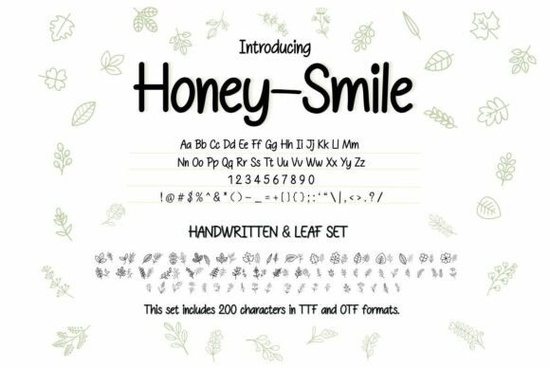
If you are looking for a handwritten font that feels genuinely warm without being too rigid, the Honey-smile font and its botanical companion set is designed to give your projects a cozy, organic edge.
This bundle combines a soft, rounded script with a dedicated collection of hand-drawn plant illustrations called the Leaf Set. Instead of hunting for separate graphics, you get a matching set of autumn leaves, garden herbs, clovers, and vines that naturally frame your text. This makes it a strategic asset for creatives who want a cohesive look without spending hours pairing fonts and illustrations. You can see more examples of this specific style on the bundle's main listing page.
What exactly is included in the Honey–smile bundle?
You receive the complete script font, which includes standard ligatures and multilingual characters. The real draw, however, is the integrated Leaf Set. This library contains delicate line art illustrations, specifically:
- Falling autumn leaves – great for seasonal themes or warm-toned projects.
- Garden herbs & clover sprigs – perfect for organic or natural labels.
- Creeping forest vines – ideal for borders or framing elements.
These elements are drawn in a similar stroke weight to the font, so they look balanced whether you place them around a word or use them as standalone decorative accents.
What kind of projects does this style work best for?
This font bundle fits especially well into niches where a personal, handcrafted aesthetic matters. Here are a few specific applications where it shines:
Cozy Lifestyle Blogging. If you run a blog about home, recipes, or slow living, this font helps you create warm header images and quote cards. The botanical elements can be used as bullet points or section dividers, saving you time in Canva or Photoshop.
Artisanal Packaging Labels. The font name itself hints at its best use honey, tea, and handmade food products. The combination of the friendly script and organic leaf doodles immediately communicates "small batch" and "natural."
Cricut & Silhouette Crafting. The simple, clean lines of the font and leaf illustrations are easy to weed and layer. You can use them for custom mugs, t-shirts, or home decor signs without worrying about tiny, intricate cuts getting stuck.
Children’s Storybook Layouts. The rounded edges of the Honey-smile font make it look friendly and approachable for kids. Pairing it with the whimsical leaf drawings works well for title pages or simple illustrated quotes.
How does Honey–smile compare to other script fonts?
Each of these fonts serves a different purpose, but this bundle is unique because it already includes the matching botanical art. This means you spend less time searching for graphics and more time creating.
A practical tip for getting started quickly
Here is a simple workflow to test this bundle in your next project:
- Type a short quote (3-5 words) using the Honey–smile font. Since it is a display font, it works best at larger sizes.
- Import one of the leaf illustrations (usually provided as a PNG with a transparent background). Place it at the end of the sentence, or use it to replace a letter like "i" or "o".
- Duplicate and scale the leaves to create a simple wreath or border around your text.